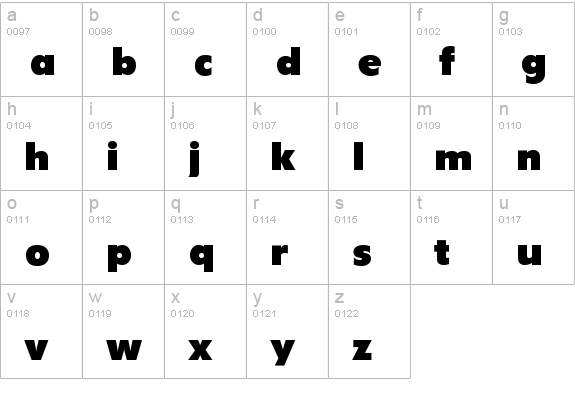
Flyer R Font Details
Flyer R font is a versatile and modern typeface that exudes elegance and sophistication. With its sleek lines and bold presence, Flyer R is perfect for a wide range of design projects, from branding to editorial design. The clean and crisp letterforms of Flyer R make it easy to read while still maintaining a sense of style and flair. What's even better is that Flyer R font is available for free download at FontsMarket.com. This means you can easily add this stunning typeface to your design arsenal without breaking the bank. Whether you're working on a professional project or just looking to spruce up your personal creations, Flyer R font is sure to impress with its timeless appeal and modern aesthetic. Download it now and elevate your designs with this fantastic free font!